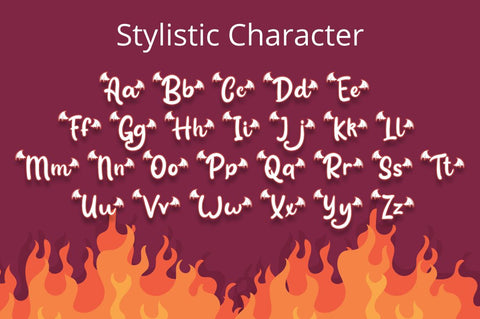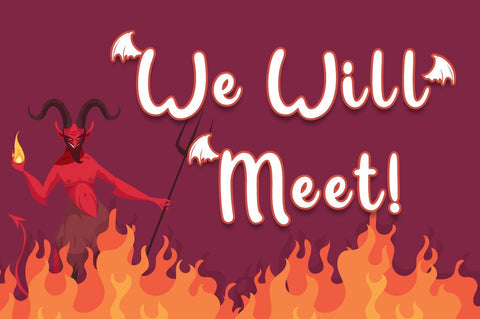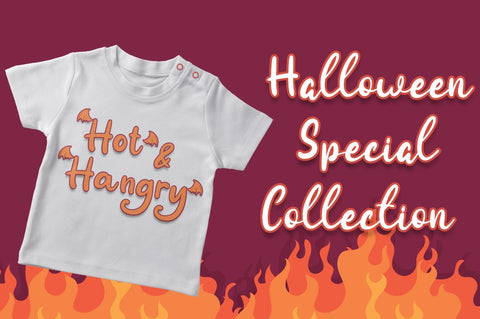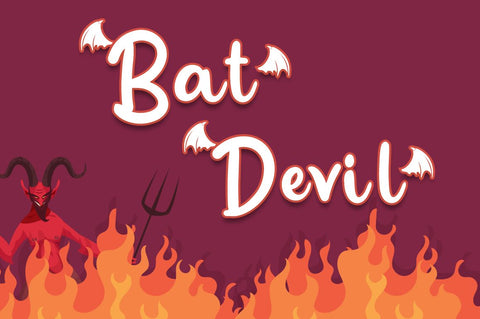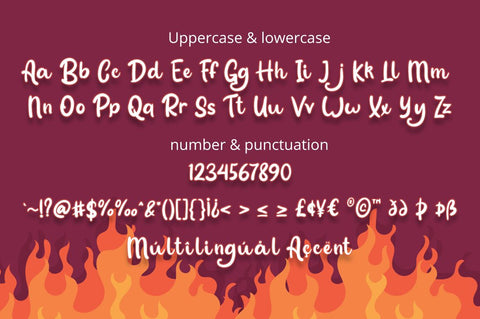
Bat Devil - Halloween Font
Bat Devil is a delicate and incredibly distinct Halloween Script Font. Fall in love with its incredibly versatile style and use it to create spectacular designs!
Bat Devil perfect for halloween promotion, branding, logo, invitation, stationery, social media post, product packaging, merchandise,
blog design, game titles, cute style design, Book/Cover Title and more.
- Beginning & Ending Swash